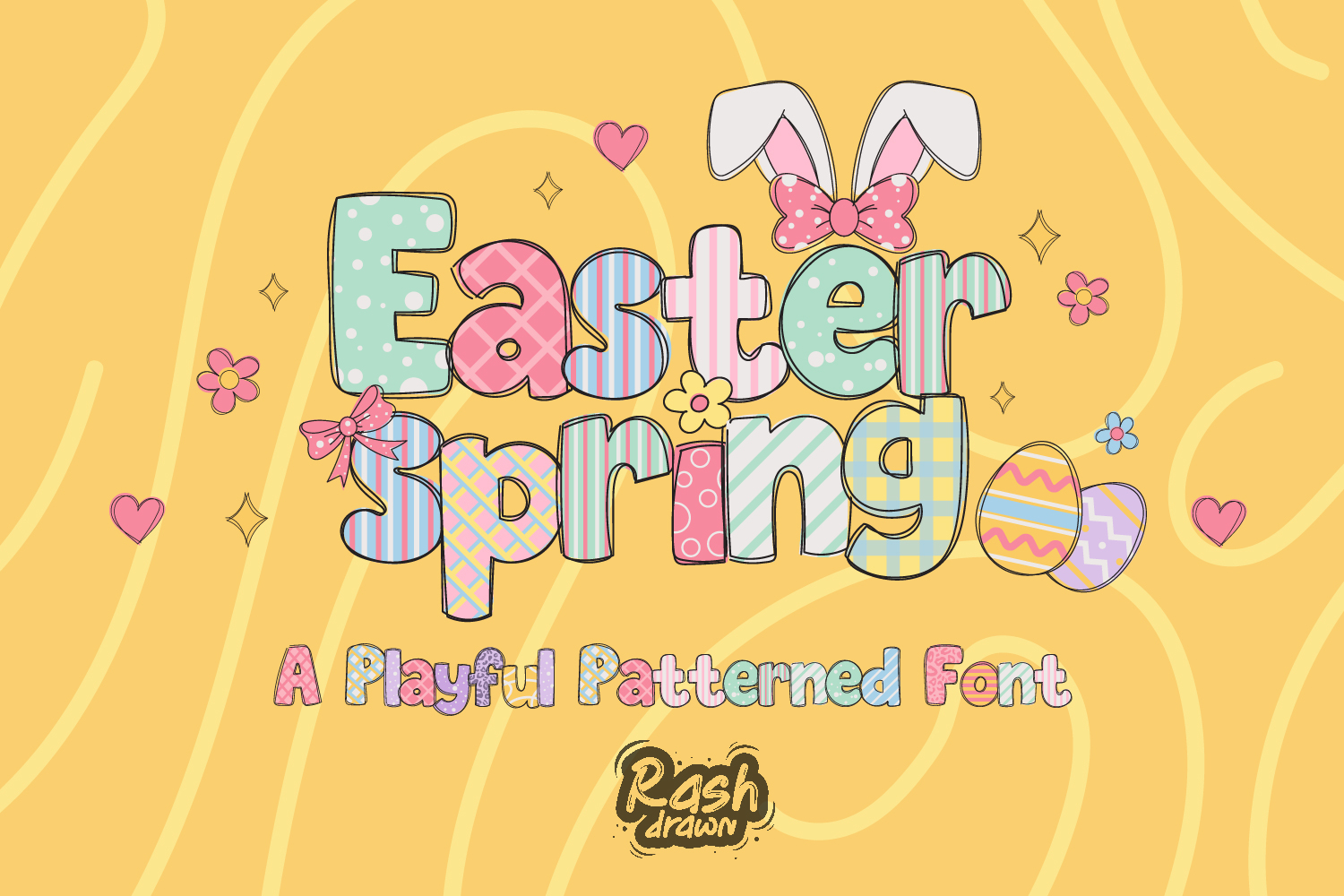
Easter spring
Easter Spring â€“ A Playful Patterned Color Font Bring the magic of spring and the joy of Easter to your designs instantly! Easter Spring is a premium OpenType-SVG color font, uniquely crafted with vibrant pastel patterns, charming textures, and adorable floral accents.
Forget about spending hours manually coloring your letters. With this font, you just type and—voila!—beautifully decorated, patterned text appears right on your screen.
What’s Included: Complete Alphabet (A-Z): Each letter features a unique, hand-drawn pattern (stripes, polka dots, checkers, and more).
Numbers & Basic Symbols: onsistent style across all digits.
Bonus Decorative Elements: Cute eggs, flowers, and hearts to embellish your layouts.
High-Resolution Vector Detail: Crisp and clean designs that look amazing in both digital and print.